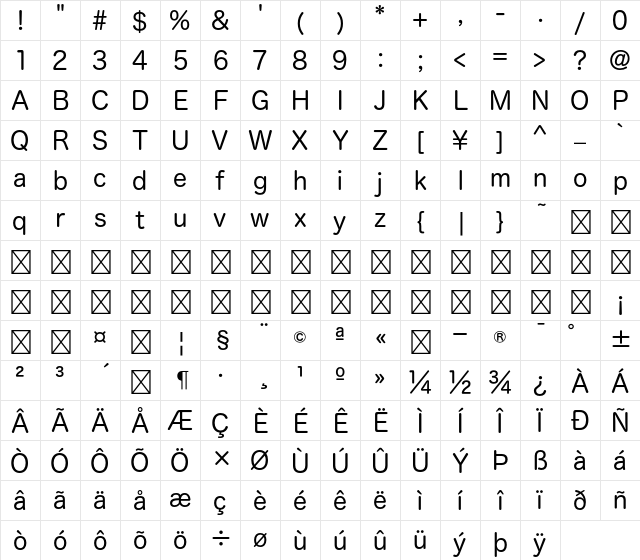
Hiragino Sans Rd Upr W4
Foundry: Dainippon Screen Mfg. Co., Ltd.
Designer: JIYUKOBO Ltd.
Design Context for Hiragino Sans Rd Upr
Hiragino Sans Rd Upr is a composed and adaptable typeface that performs quietly and consistently across a wide range of design contexts.